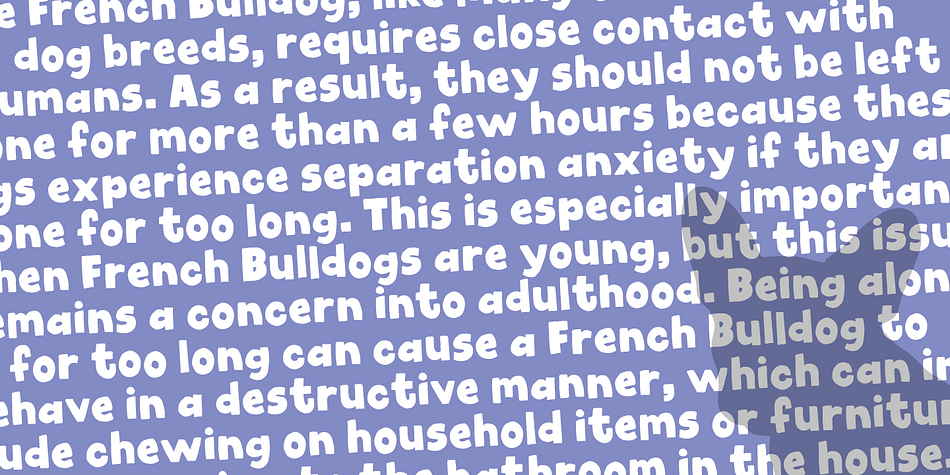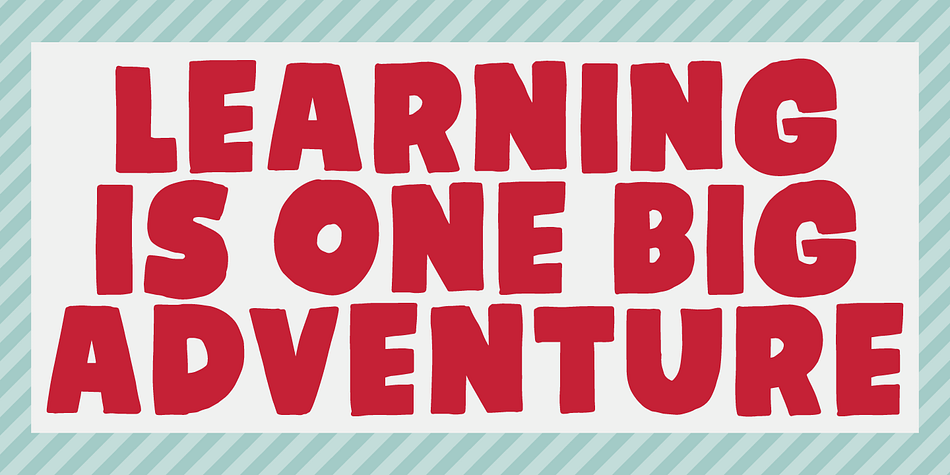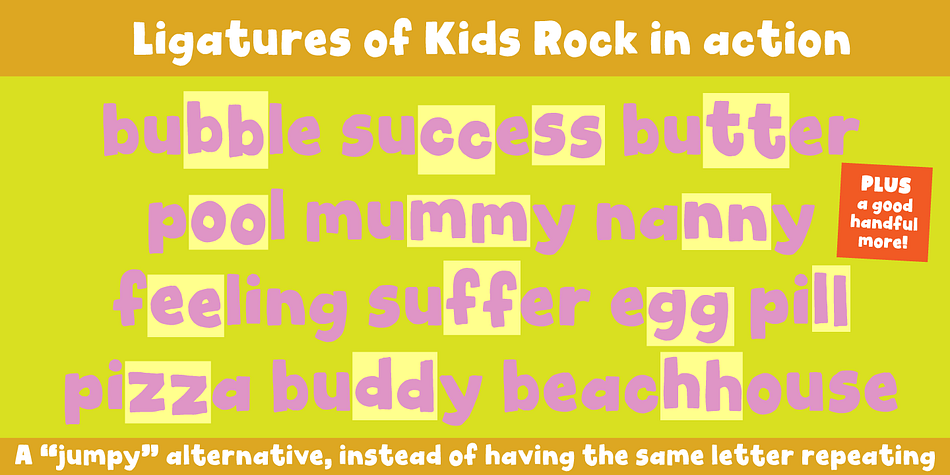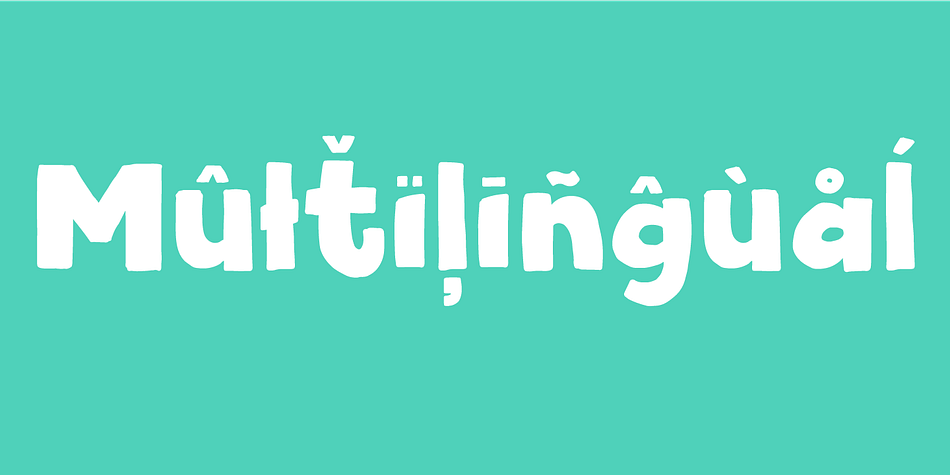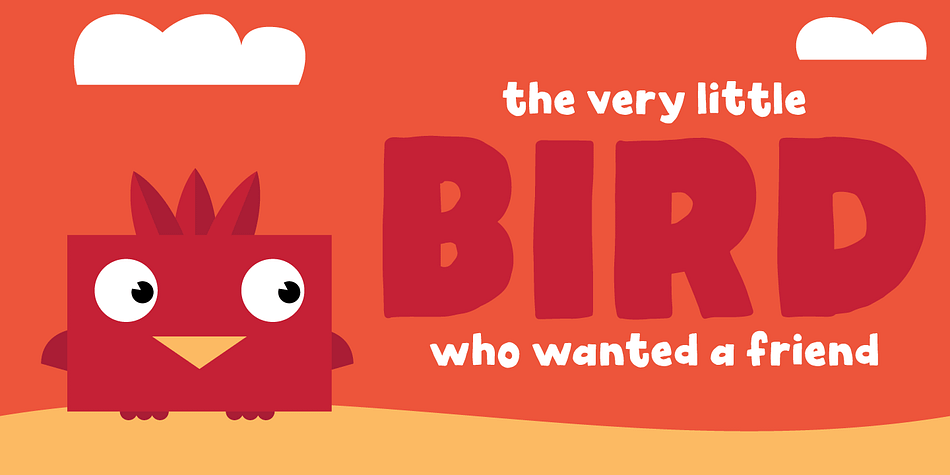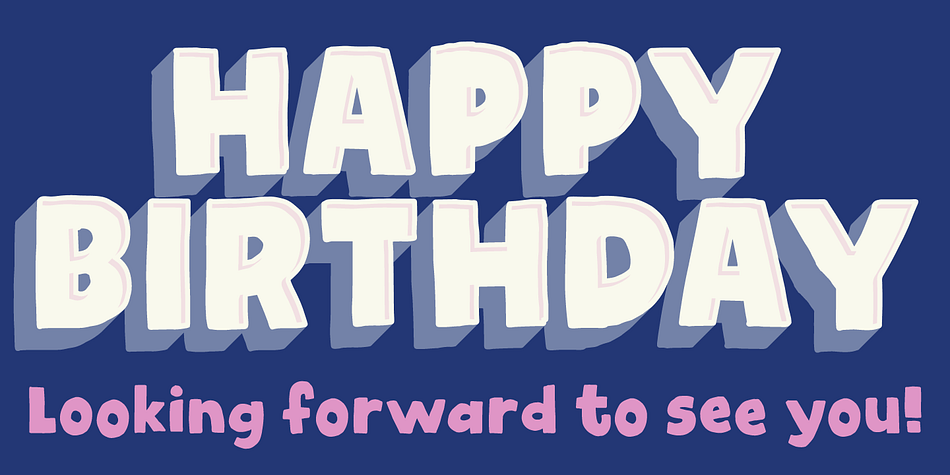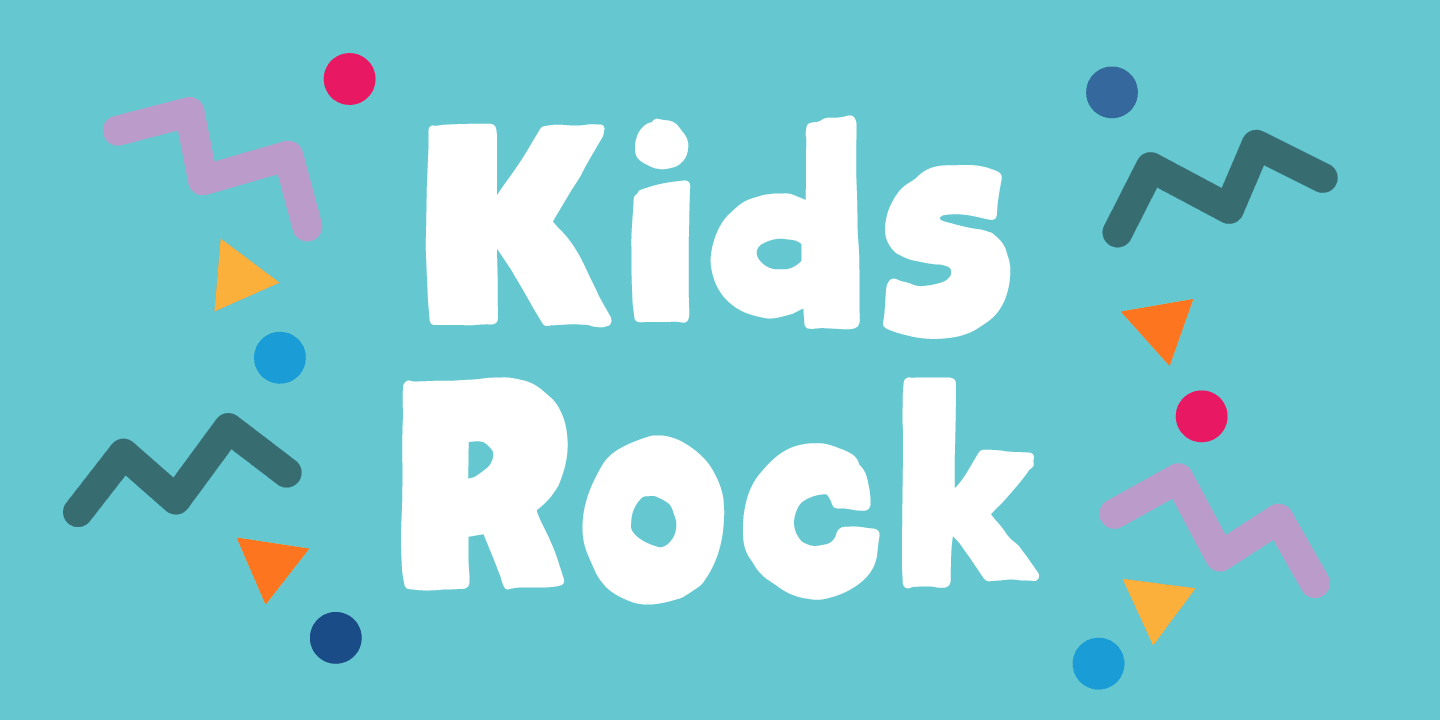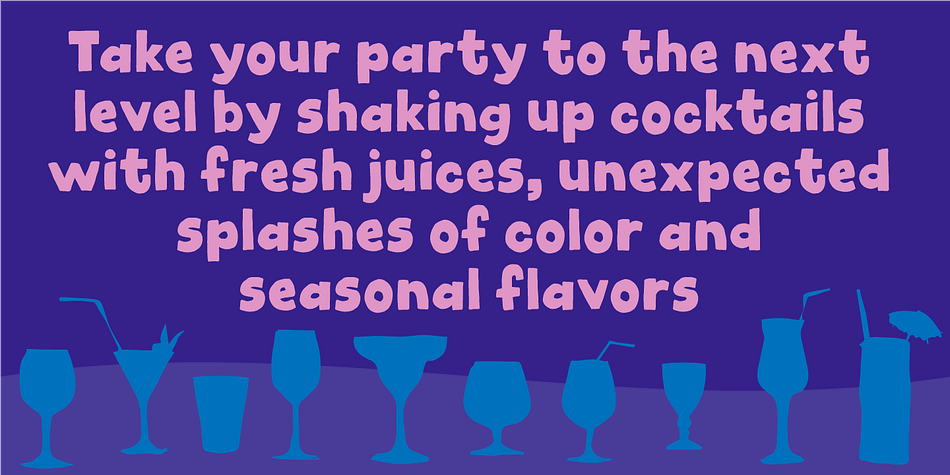
Designed by Jakob Fischer, Kids Rock is a hand display and kids font family. This typeface has two styles and was published by Pizzadude.dk.
Kids Rock is comic with a twist of graffiti. Comes with ligatures for double letter substitution as well as multilingual support